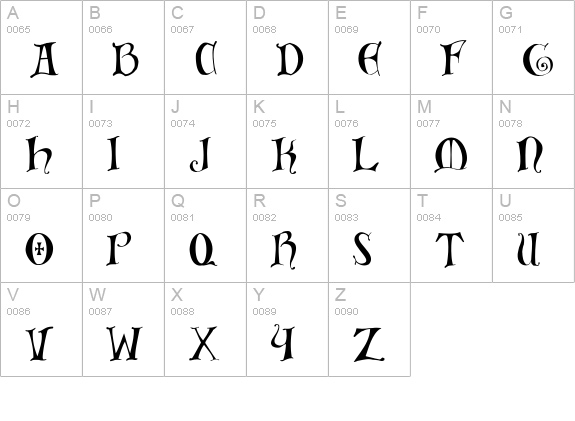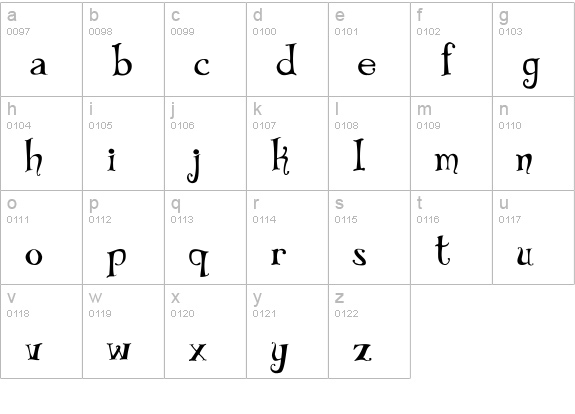
Bibliotheque Font Details
Bibliotheque font is a versatile and elegant typeface that exudes sophistication and style. With its clean lines and classic design, this font is perfect for a wide range of projects, from branding to editorial design. The timeless appeal of Bibliotheque font makes it a popular choice among designers looking to add a touch of refinement to their work. What's even better is that Bibliotheque font is available for free download at FontsMarket.com. This means that you can easily access this high-quality font without worrying about any costs or licensing restrictions. Whether you're working on a personal project or a professional assignment, Bibliotheque font is a reliable and stylish choice that will elevate your design to the next level. Download it now and add a touch of sophistication to your creations!